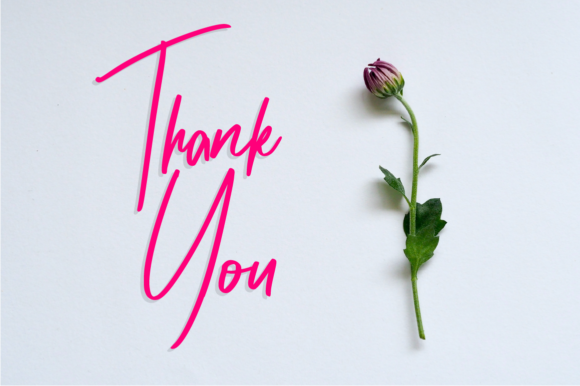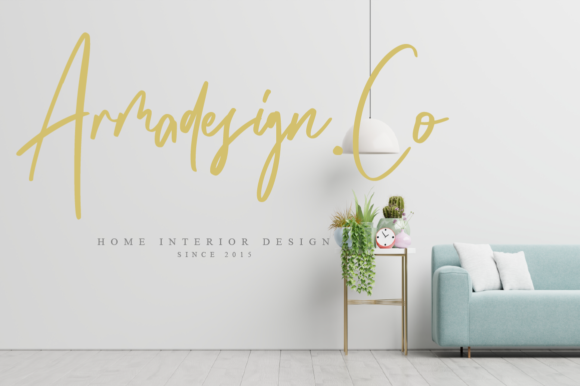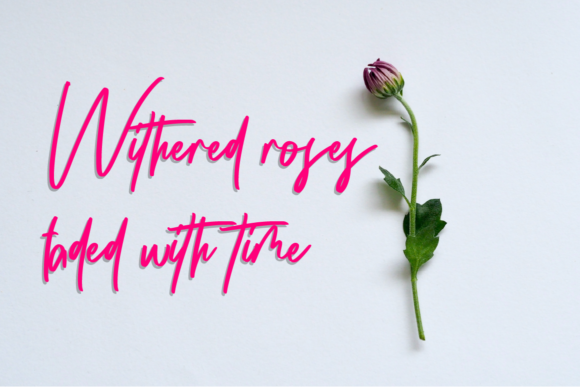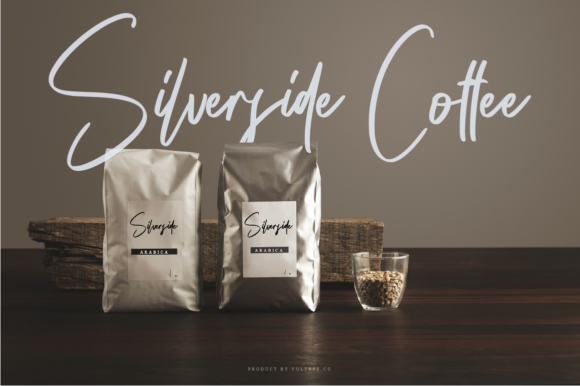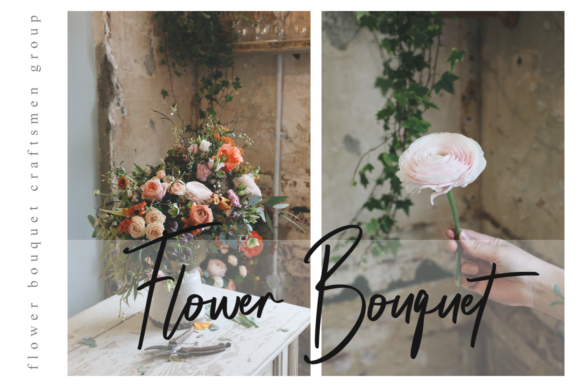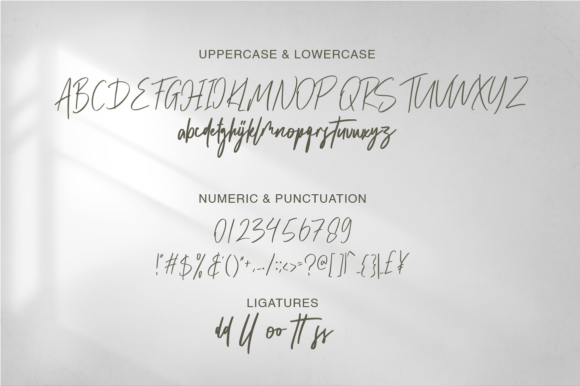
Silverside Font
About Silverside Font
Silverside is a modern script font with a playful baseline that will look stunning on wedding invitations, thank you cards, quotes, greeting cards, logos, business cards and every other design which needs a handwritten touch.